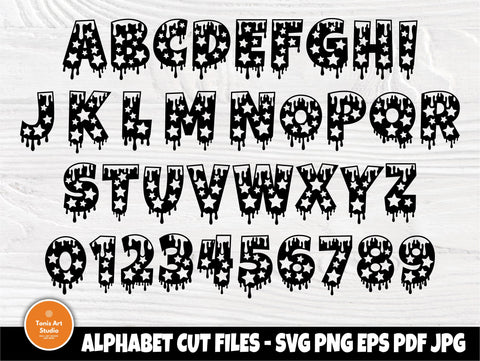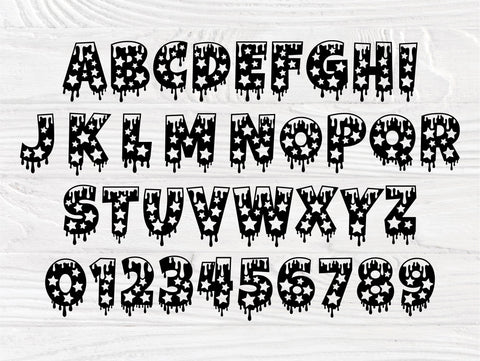
Christmas Font SVG Cut Files, Dripping Svg, Winter
* Make your own project with these beautiful Christmas Letters SVG, Digital Download in SVG, PNG, EPS, PDF, JPG format. Christmas Font Svg, Dripping Font SVG, Dripping Numbers, Dripping Letters, Alphabet Svg, Monogram Font Svg, Svg Files for Cricut, Silhouette Cut Files.